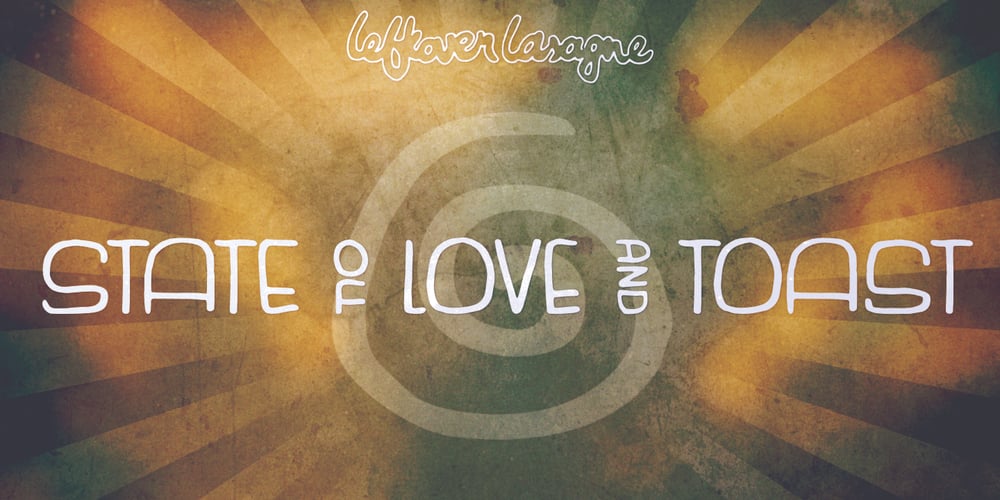
State of Love and Toast LL Font Family was designed by Alex Volmer and published by Leftover Lasagne. State of Love and Toast LL contains 1 styles and family package options. State Of Love and Toast is a retro typeface reminiscent of the early 90’s. It’s certainly the Seattle of fonts. The font features auto ligatures for duplicate letters, quite a few graphical elements & shapes which can be accessed by shortcuts (lowercase letter + number form 0-9) and smallcaps (alternate versions of the lowercase letters).